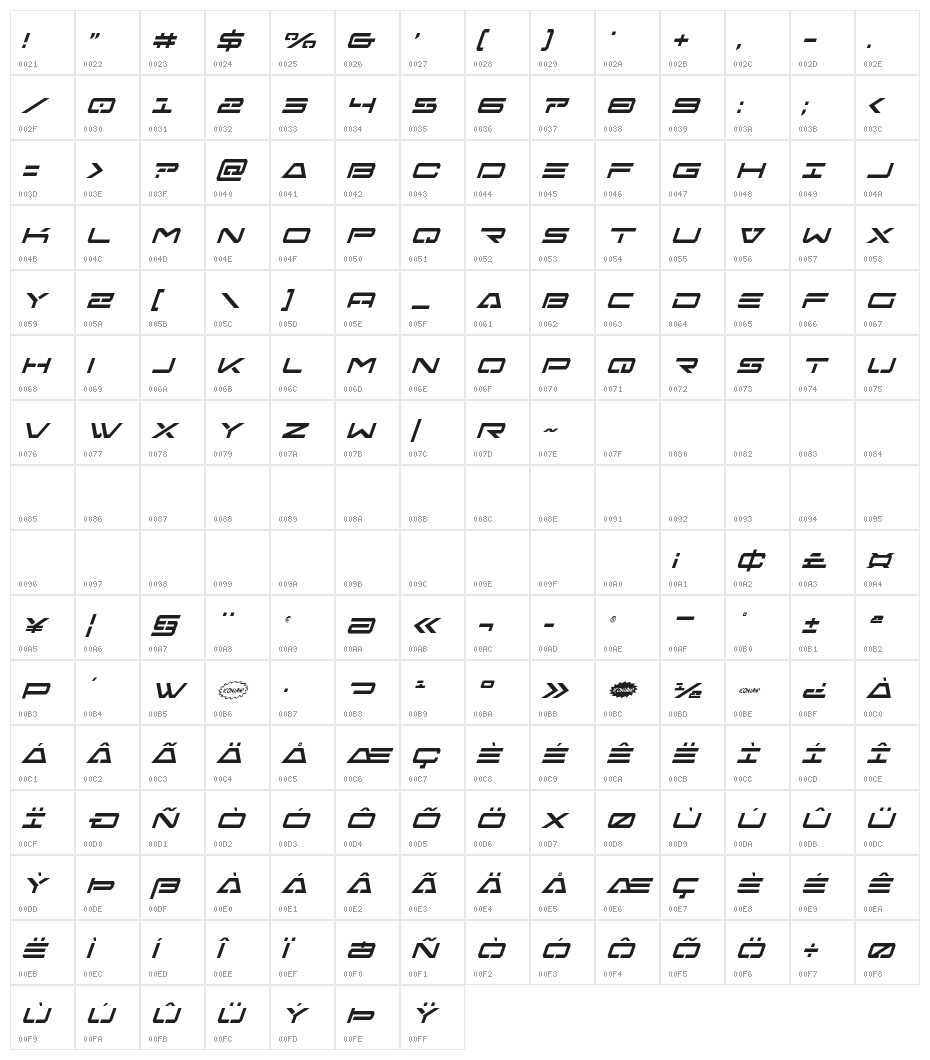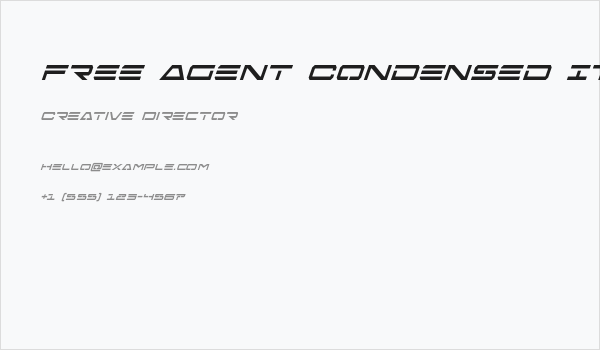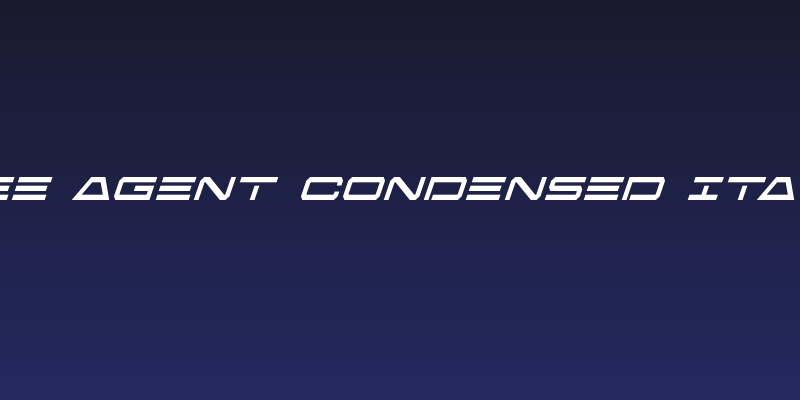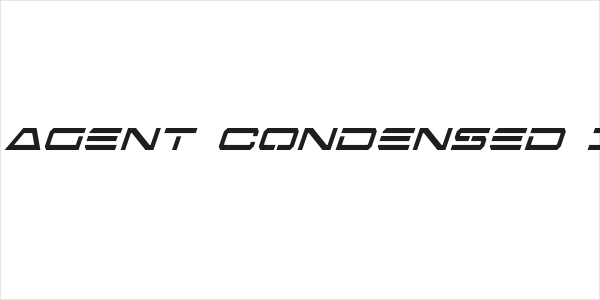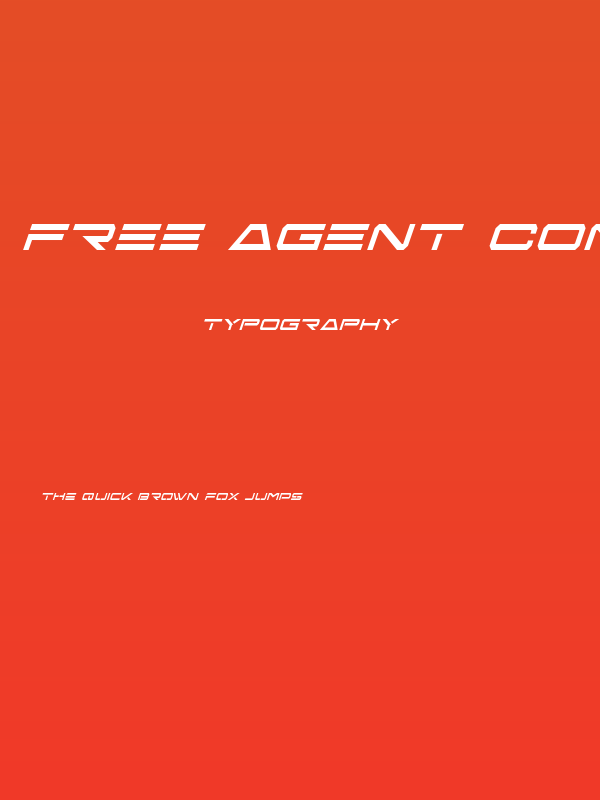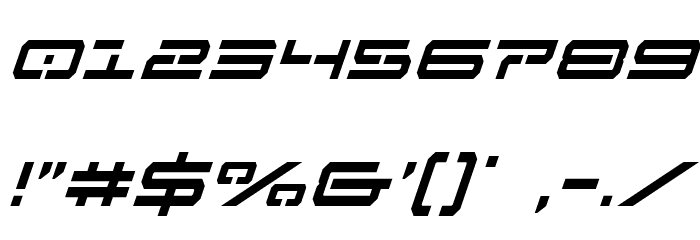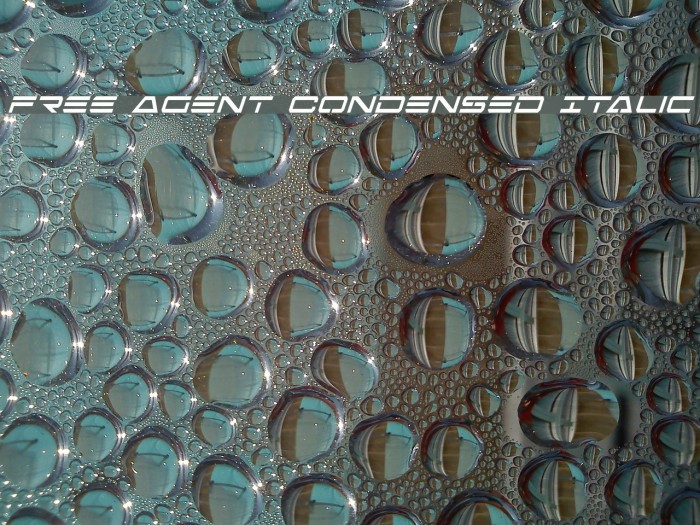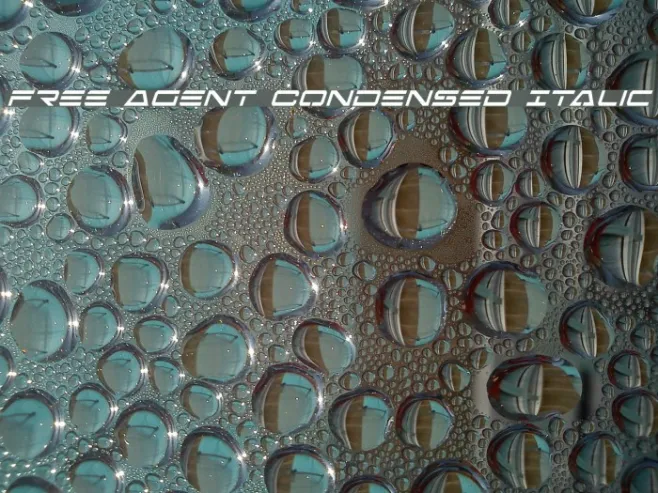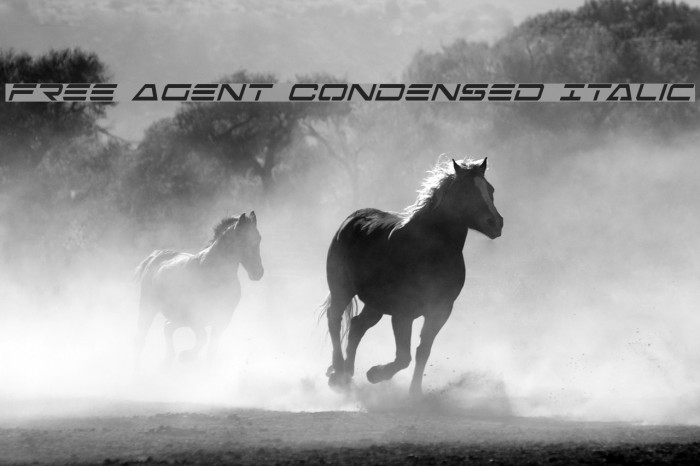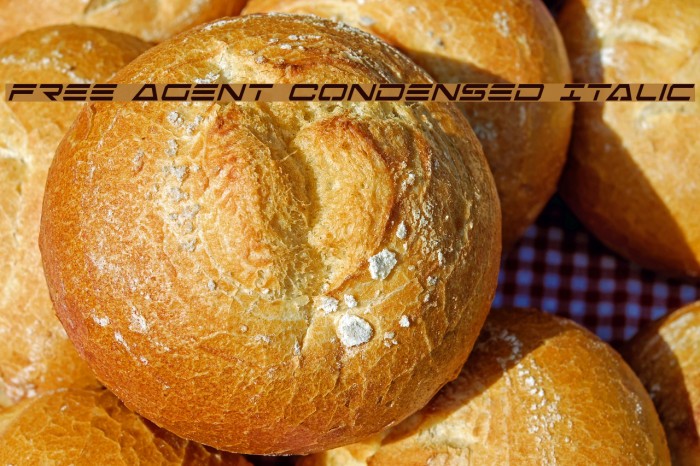
Free Agent Condensed Italic Font
Free Agent Condensed Italic Description
This font features a futuristic and dynamic design, characterized by its sharp angles and slanted orientation. The condensed form gives it a sleek and modern appearance, making it ideal for projects that require a sense of speed or innovation. The italic style adds a sense of motion, enhancing its suitability for technology-related themes. The characters are tightly spaced, contributing to its compact and efficient look. The font maintains a consistent stroke width, providing a uniform and balanced appearance across all characters. Its unique style makes it stand out, perfect for eye-catching headlines or branding.
| Proposed Projects | Ideal for technology branding, sports team logos, sci-fi movie posters, and modern web design. |